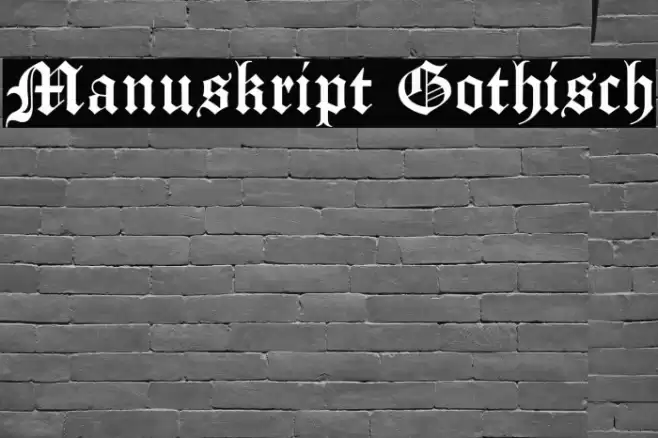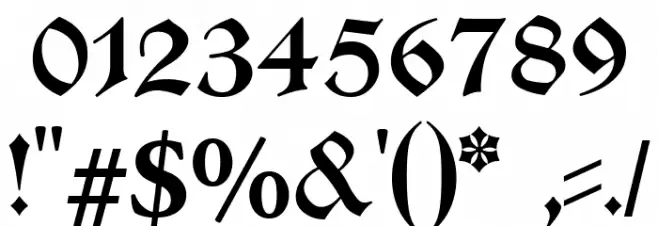
Manuskript Gothisch Font
Manuskript Gothisch Description
This font exhibits a classic blackletter style, characterized by its intricate and ornate letterforms. The uppercase letters feature sharp, angular lines with decorative serifs, giving them a bold and authoritative presence. The lowercase letters maintain the same intricate detailing, with a slightly more condensed form that enhances readability. The numerals are consistent with the overall style, featuring the same sharp angles and decorative elements. Special characters are equally ornate, fitting seamlessly into the aesthetic. This font is reminiscent of medieval manuscripts and traditional Gothic script, making it ideal for projects that require a historical or formal touch.
A classic blackletter font with intricate, ornate letterforms and sharp, angular lines from Uncategorized fonts.
- Proposed Projects: Ideal for historical documents, formal invitations, branding for luxury products, or any project requiring a traditional Gothic aesthetic.
- Overall Style: Classic
- Use Case: Headlines, Logos, Decorative text